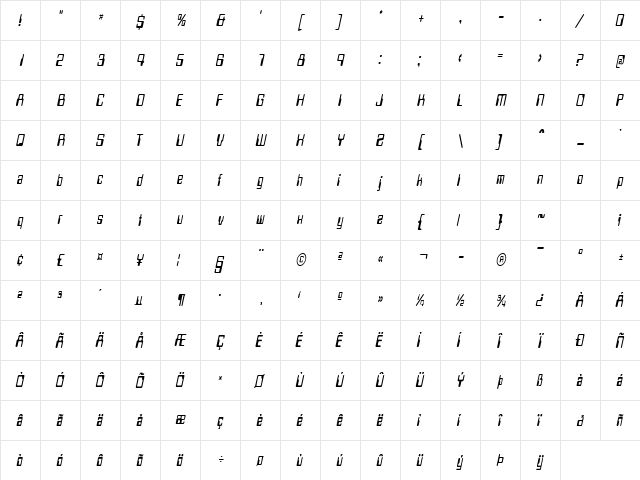
LoganCondensed Italic Font Preview
Design Context for LoganCondensed Typeface
LoganCondensed takes a measured approach to typography — its balanced proportions and neutral character make it a reliable workhorse for both digital and print work. The dynamic lean of this cut emphasises speed and emphasis in any layout. The condensed width makes it efficient for tight spaces without sacrificing legibility.